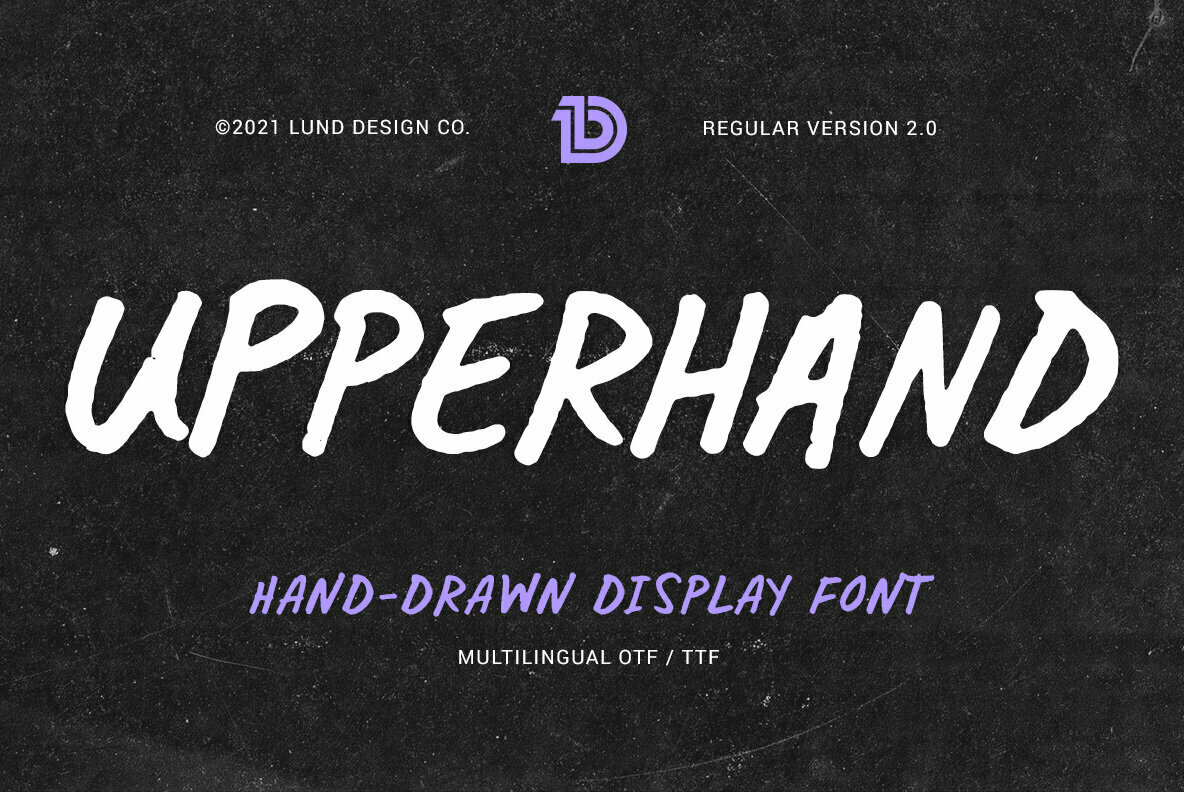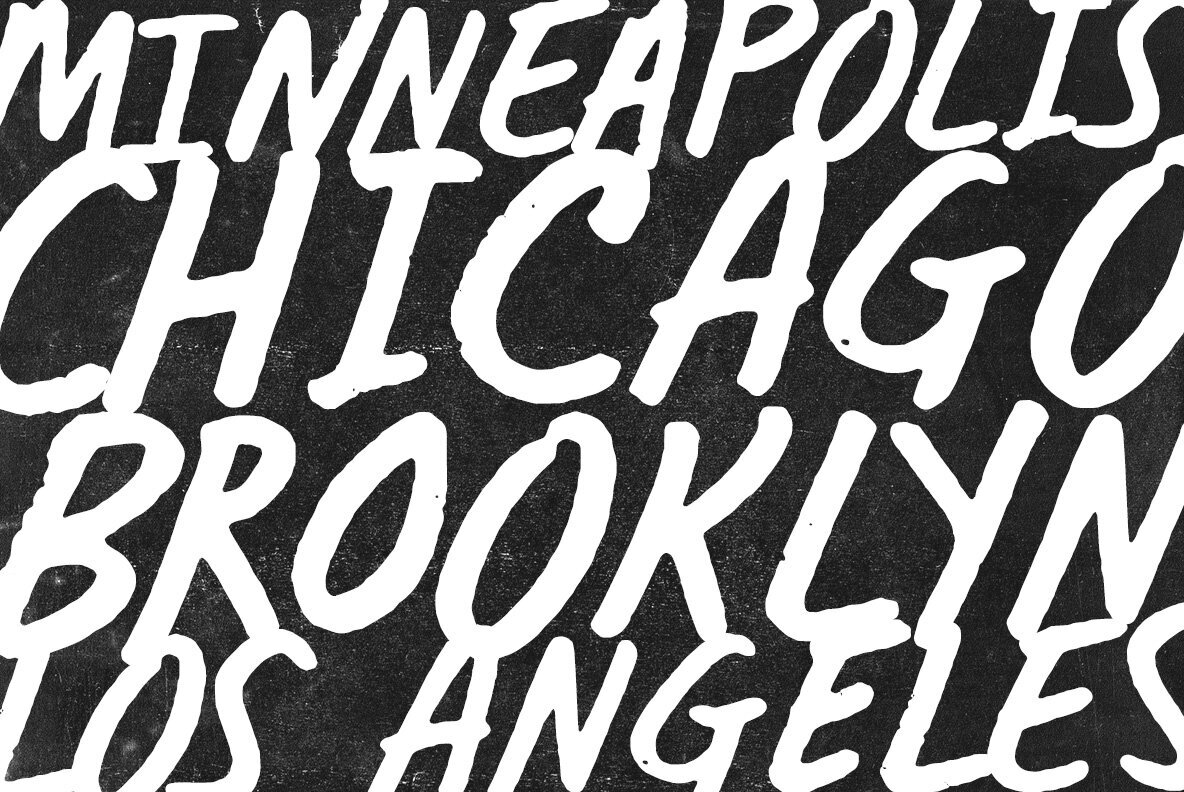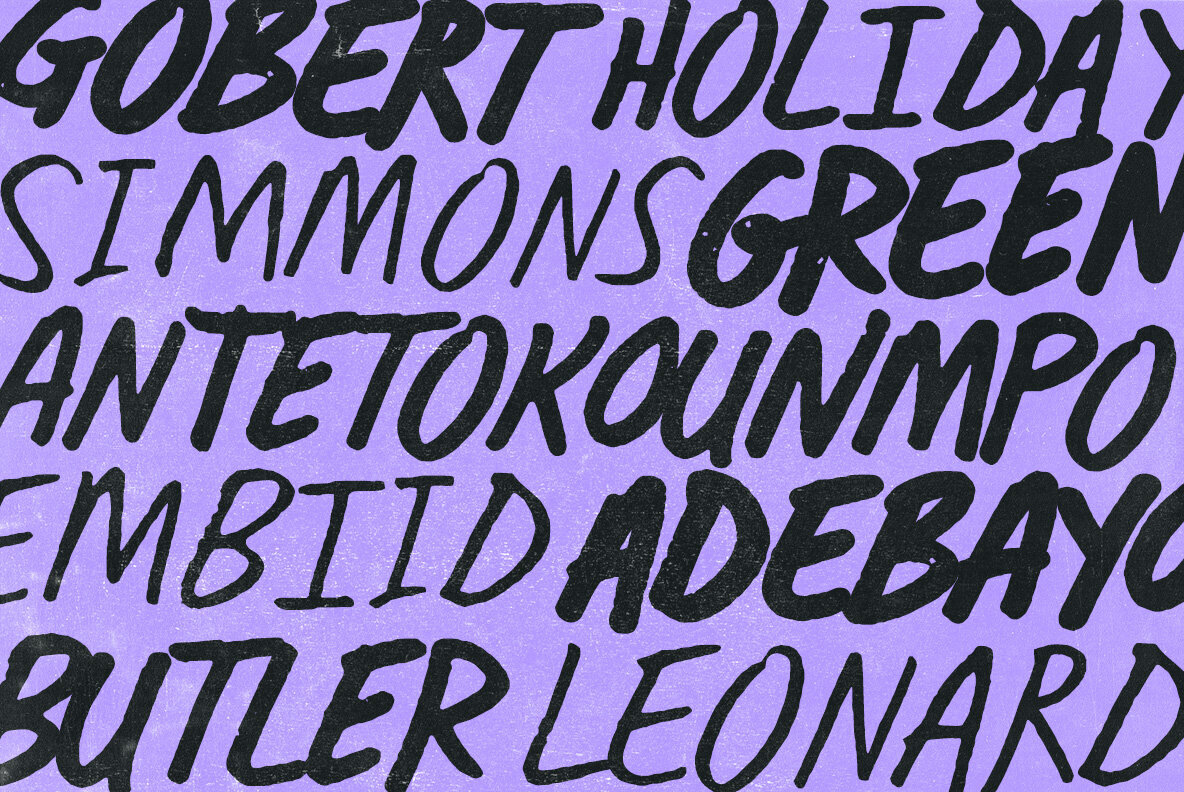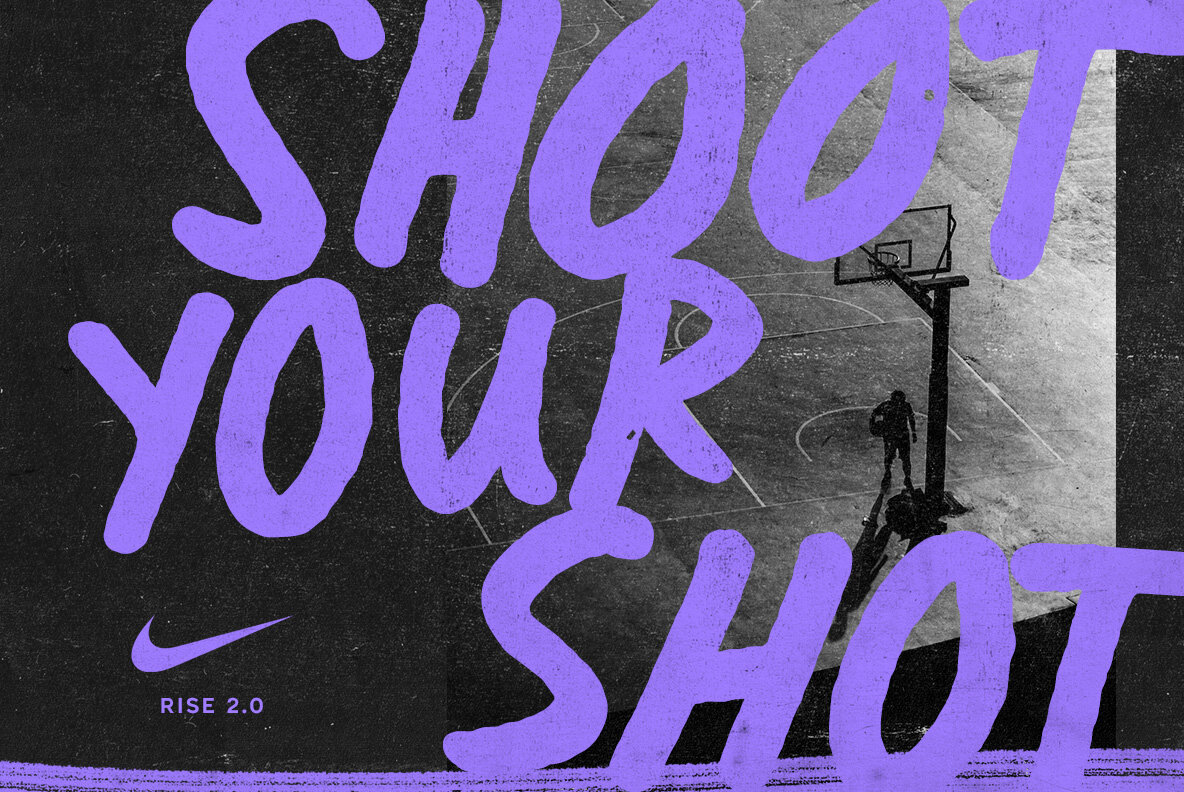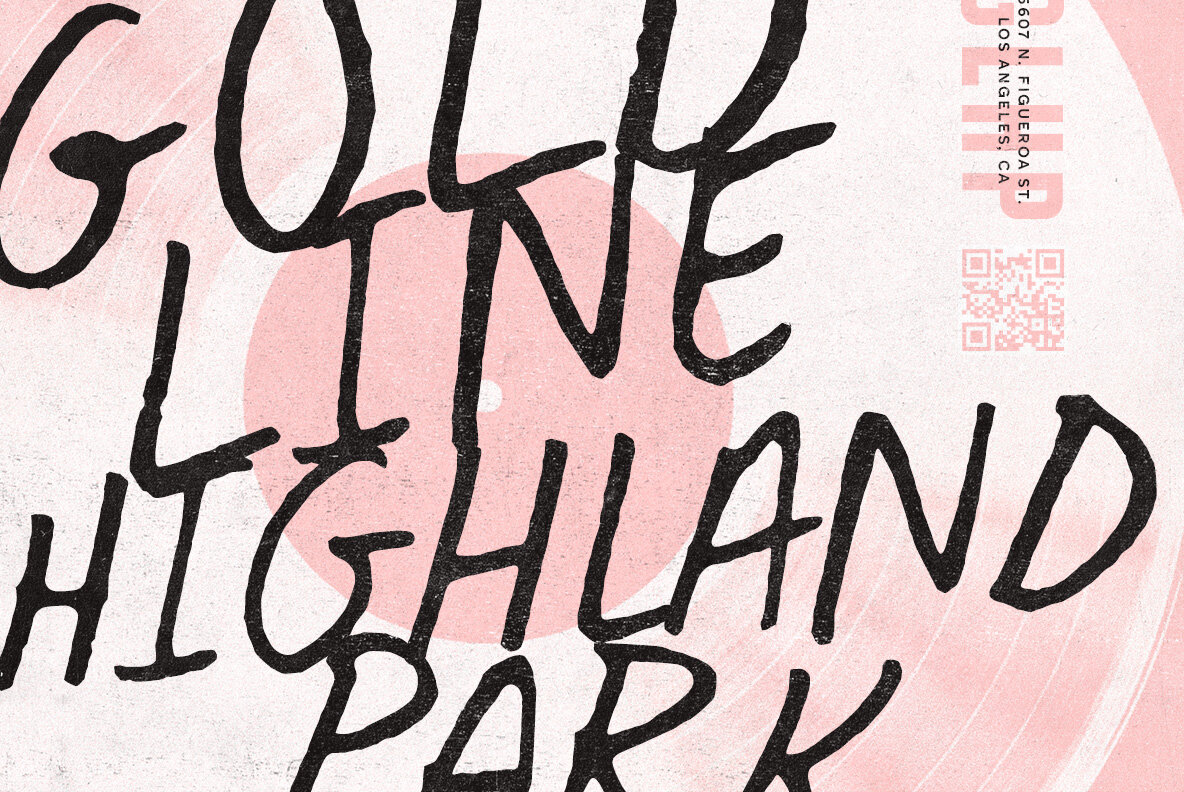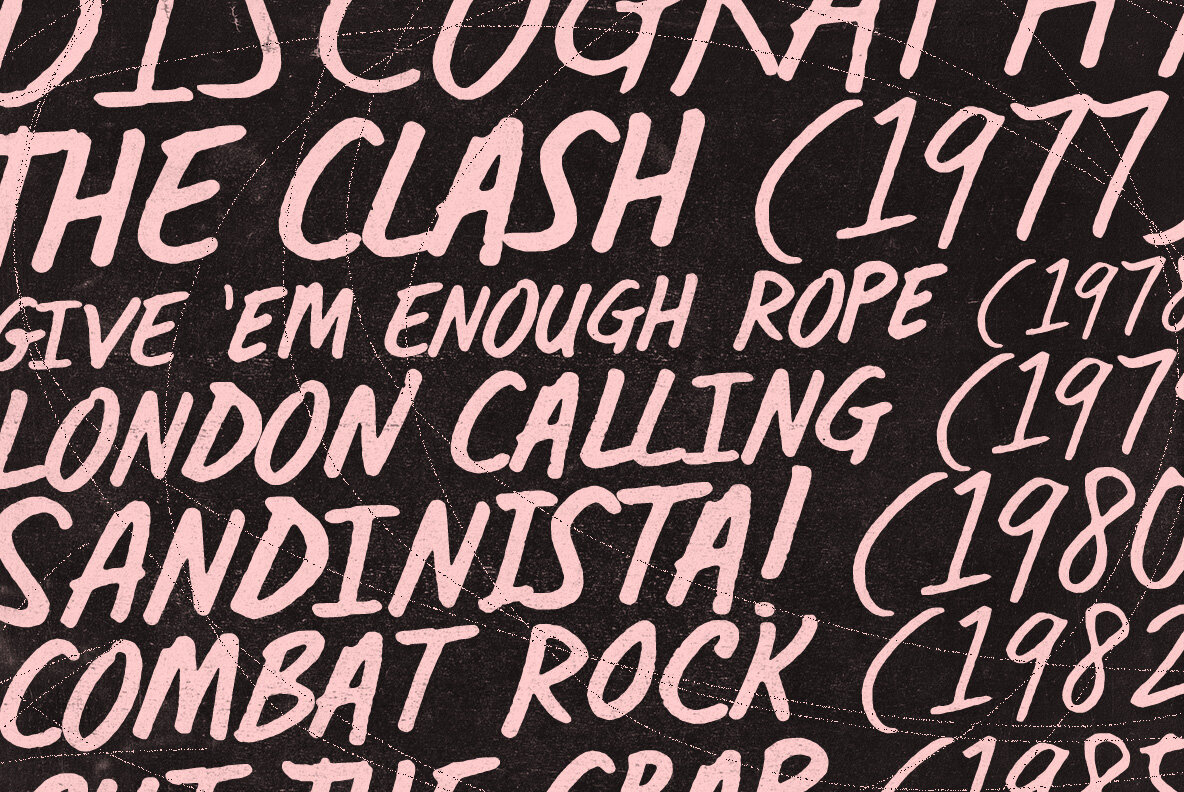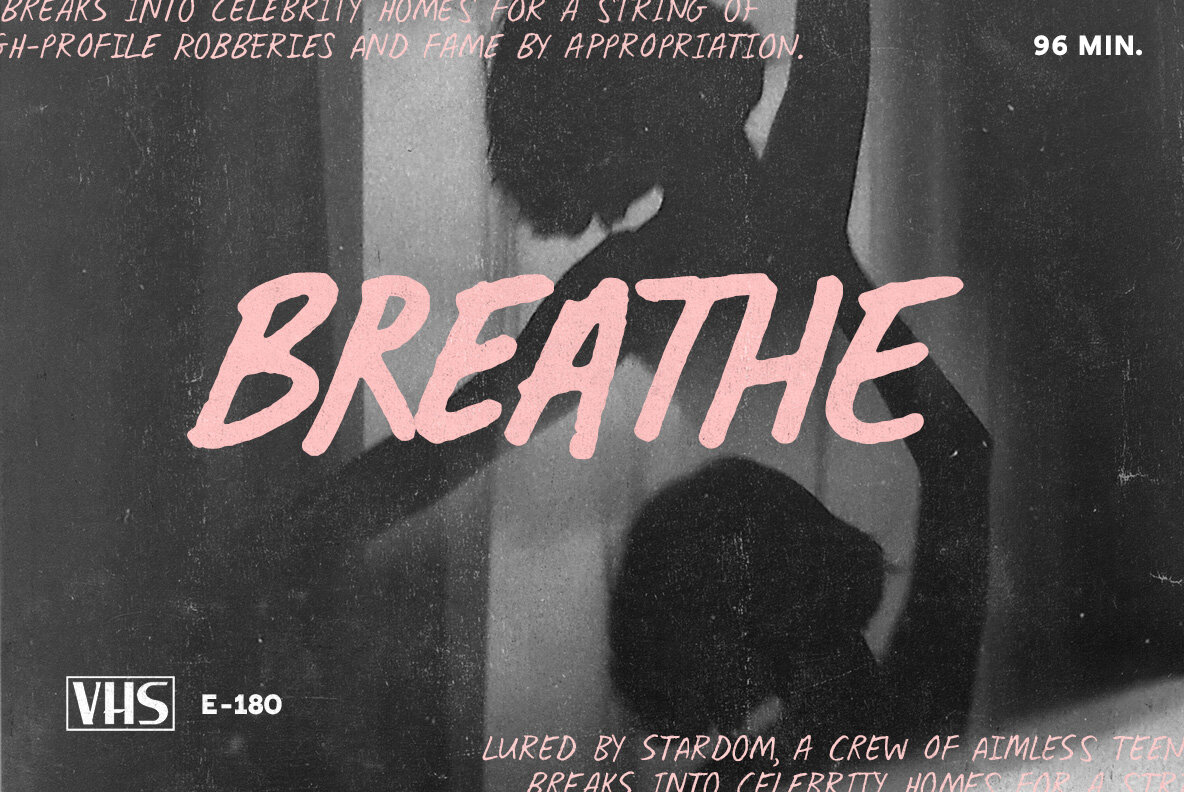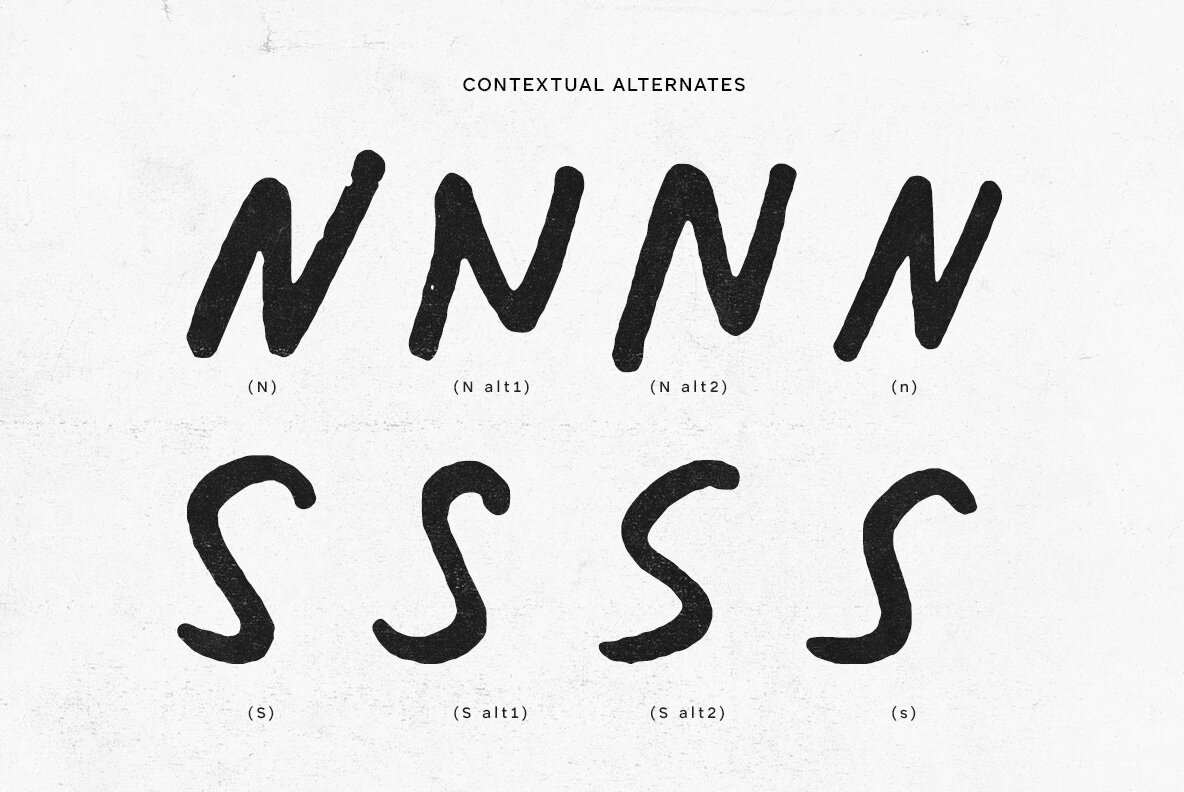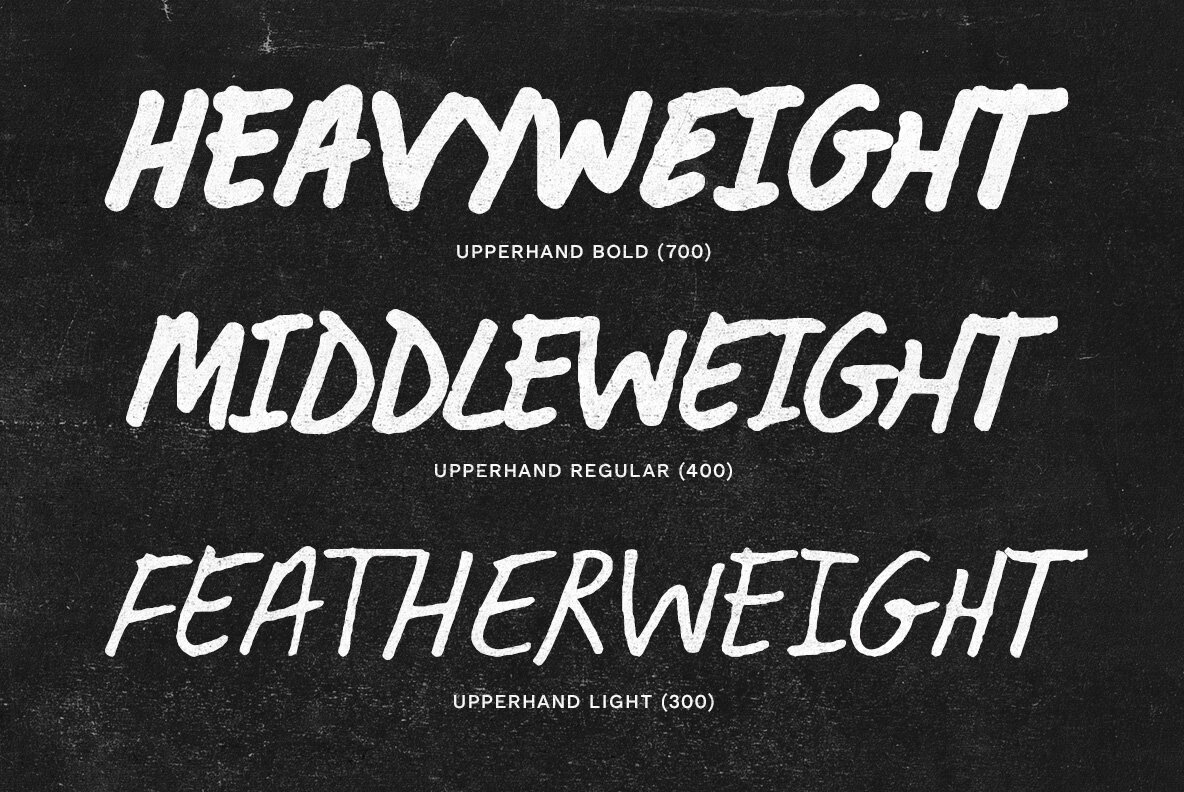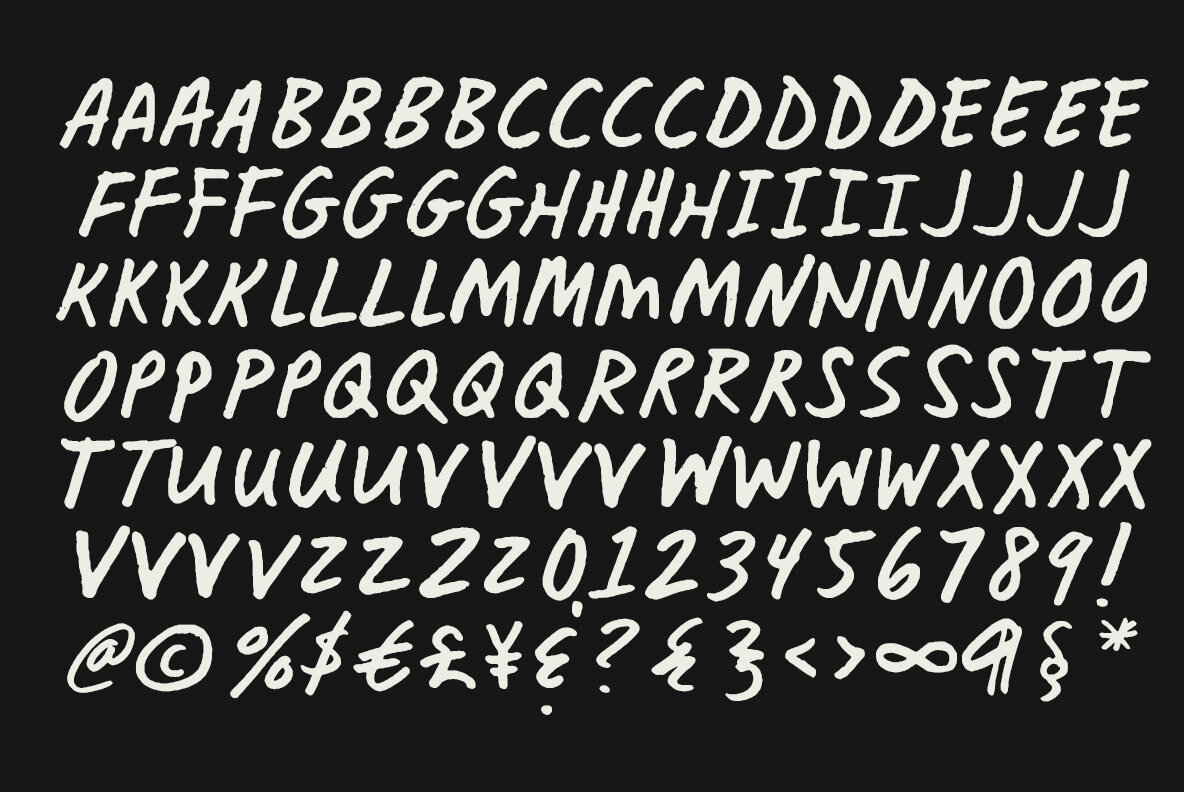
Upperhand Font
Upperhand is a hand-drawn display typeface perfect for headlines, handwritten quotes, or adding a textural touch to any project. It is strong, confident and organic; giving it flexibility for a broad range of uses. It includes accents, multilingual characters and is designed to use both cases interchangeably, helping your text look hand-made.